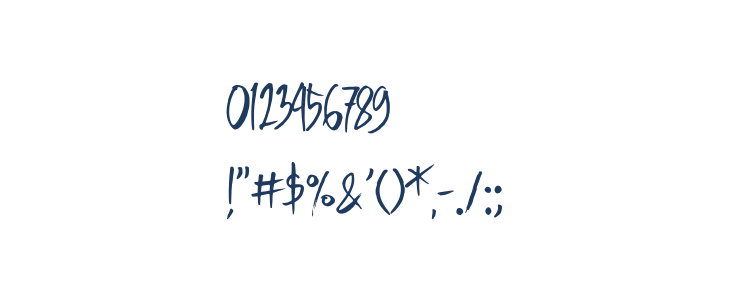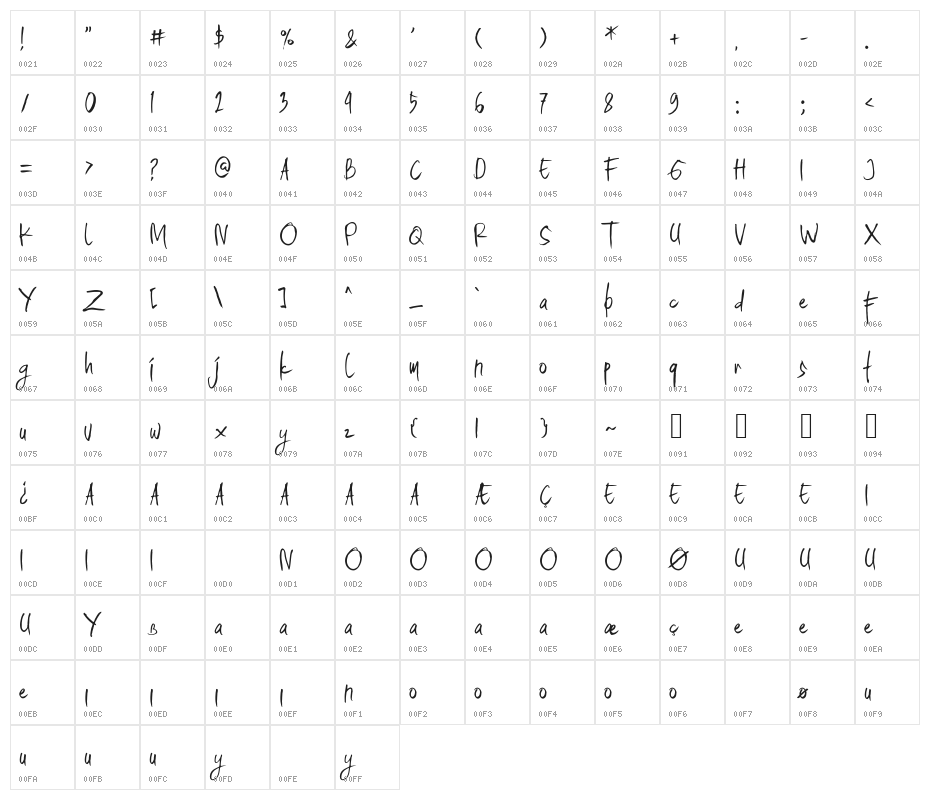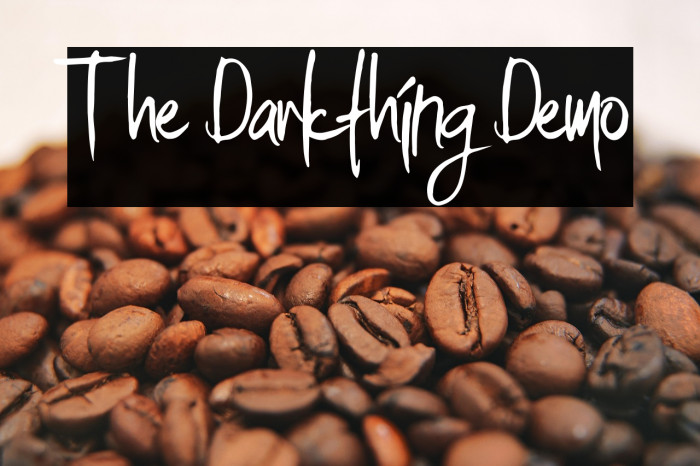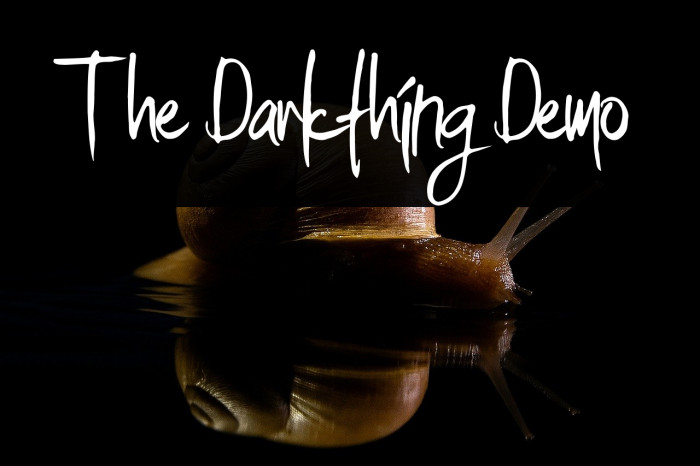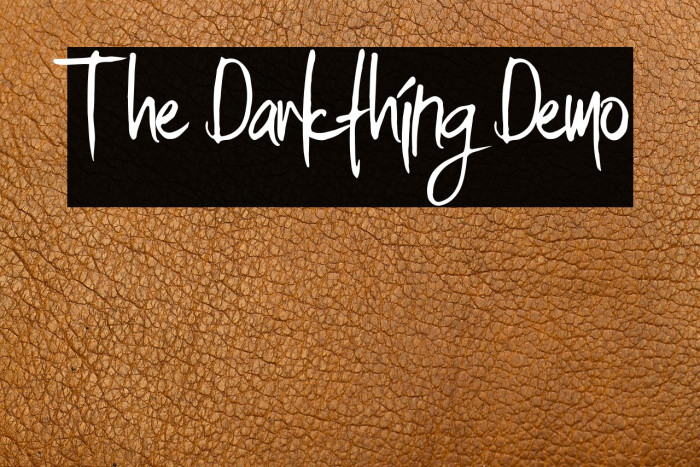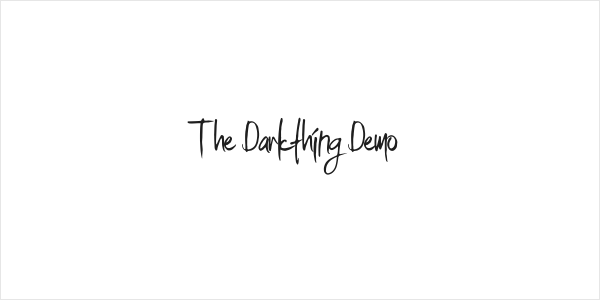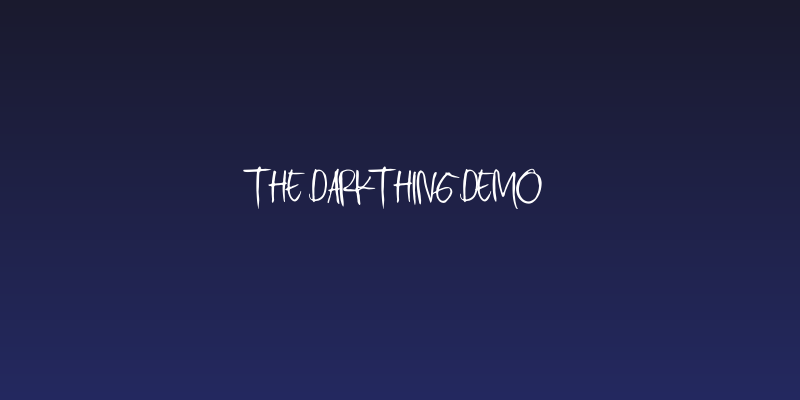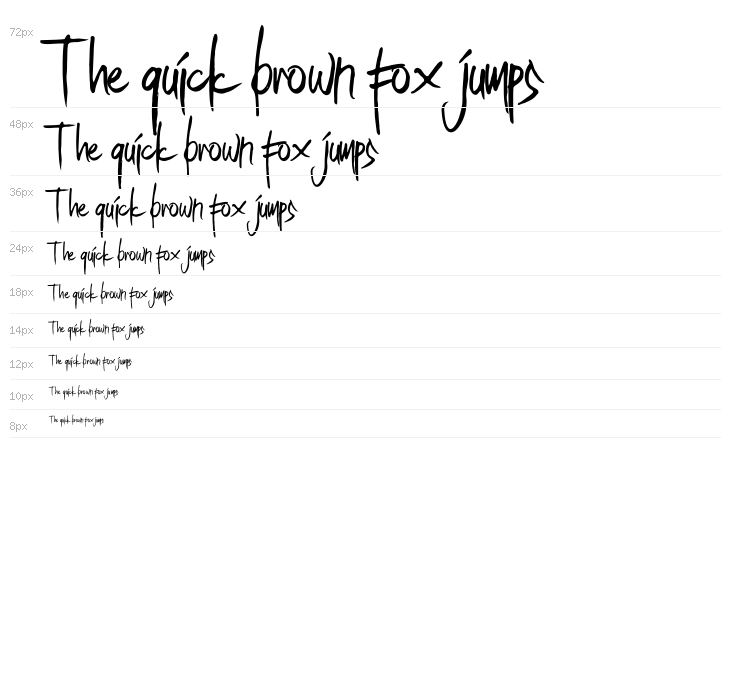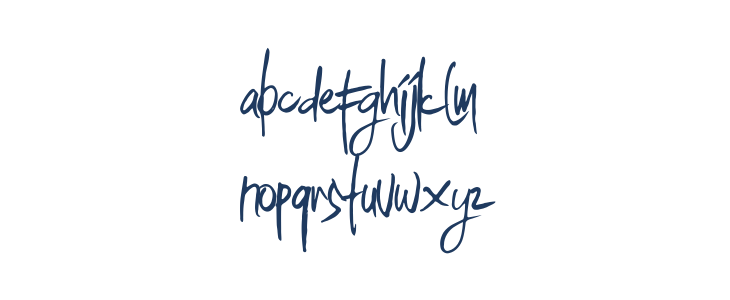
The Darkthing Demo Font
The Darkthing Demo Description
This font exudes a raw, expressive energy with its hand-drawn, brush-like strokes. The characters are irregular and dynamic, giving a sense of movement and spontaneity. Uppercase and lowercase letters maintain a consistent style, with elongated forms and varying stroke widths that create a lively, artistic appearance. The numerals and special characters follow the same expressive style, making the font suitable for creative and informal applications. Its unique character spacing adds to the overall dynamic feel, making it stand out in any design.
Use CaseLogos, Posters, Creative projects
Proposed ProjectsIdeal for artistic projects, album covers, posters, and branding that requires a bold, creative touch.